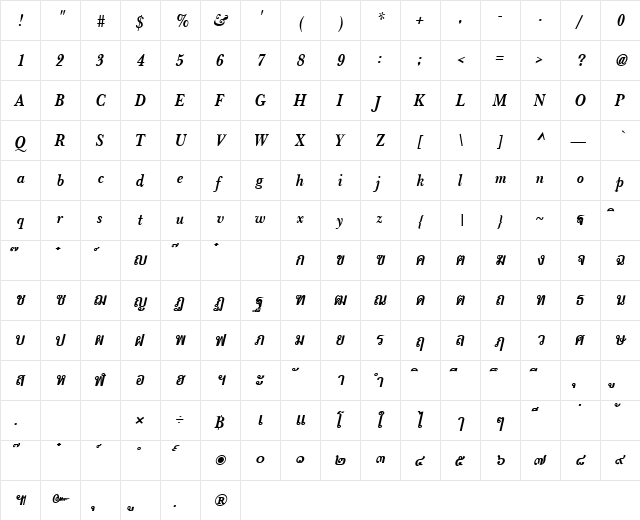
PSL-Irene Bold Italic
Design Context for PSL-Irene Typeface
PSL-Irene is a composed and adaptable typeface that performs quietly and consistently across a wide range of design contexts. Its italic angle brings a sense of urgency and motion to the letterforms. The heavy weight commands attention and anchors typographic hierarchies.
Pro Tip: Try PSL-Irene for annotation and caption copy alongside an upright companion — the contrast in angle creates a dynamic but ordered typographic system.